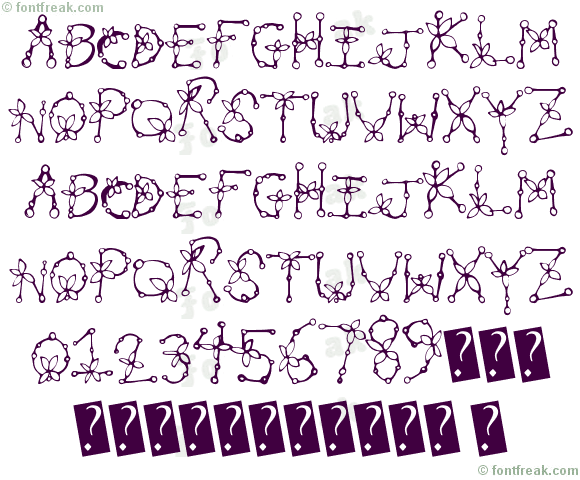
PlantType
PlantType by Xerographer Fonts is a charming decorative font that captures the essence of nature through its unique design. This font features whimsical, organic shapes that resemble intertwining plants, making it ideal for projects that call for a touch of creativity and playfulness. The visual characteristics of PlantType include thin to medium stroke weights with minimal contrast, allowing for a light and airy feel. The letters are interconnected with delicate vines and leaves, giving the font an artistic flair while maintaining legibility. The spacing is thoughtfully designed to ensure clarity, even in longer texts.
PlantType is an excellent choice for a variety of specific use cases. It can elevate wedding invitations with its romantic and organic aesthetic, making them feel both personal and enchanting. This font is also perfect for eco-friendly product packaging, as it aligns beautifully with brands focused on sustainability. Additionally, it works wonderfully for children’s books and educational materials, providing a fun and engaging reading experience. Graphic designers may find this font particularly appealing for event posters and social media graphics that aim to evoke a sense of whimsy and connection to nature.
Targeted towards graphic designers, small business owners, and content creators, PlantType seamlessly integrates into projects that require a unique and artistic touch. Its freeware license makes it accessible, encouraging creativity without budget constraints.
What sets the PlantType font apart is its distinctive ability to blend natural elements with typographic design, creating a visual experience that is both engaging and memorable. With the PlantType font free download, you can easily incorporate this delightful typeface into your next project and let your creativity flourish.